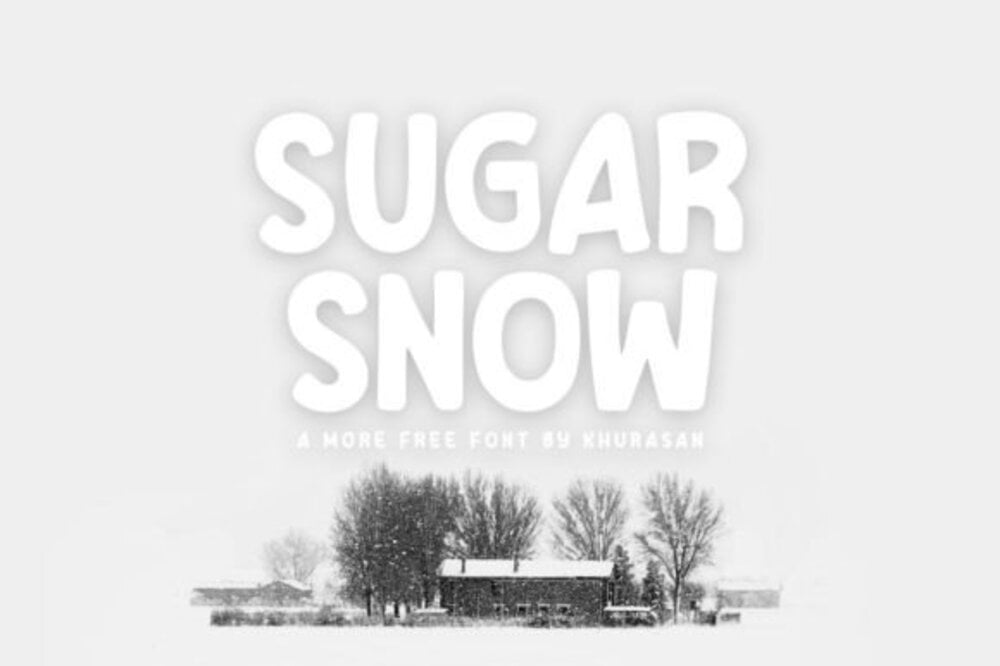
Sugar Snow Font
Sugar Snow font exudes a charming, whimsical elegance inspired by soft winter days. Its delicate curves and playful flourishes create a cozy, hand-drawn feel, perfect for festive projects, invitations, and branding. Reminiscent of frosty patterns and powdered sugar, this typeface combines warmth and sophistication. Its smooth flow and enchanting style make it ideal for evoking joy, wonder, and the magic of snow-filled seasons.